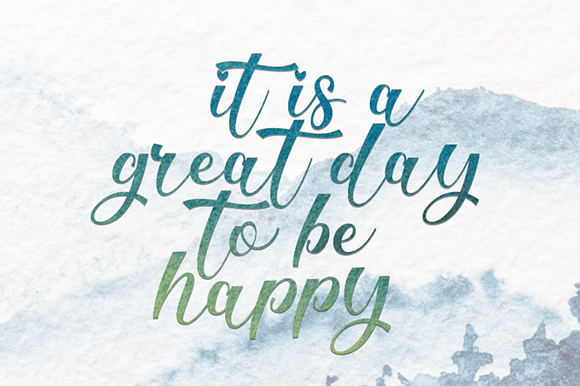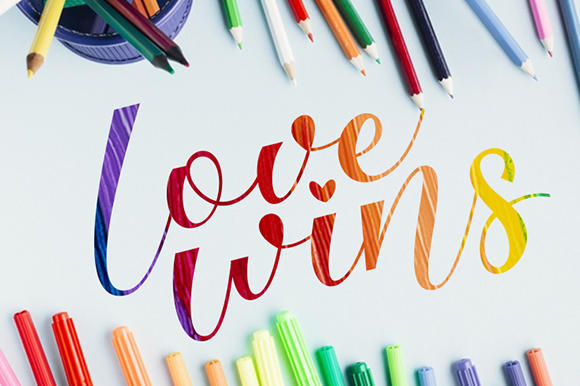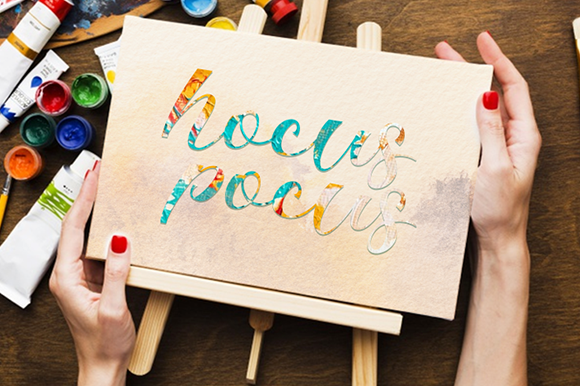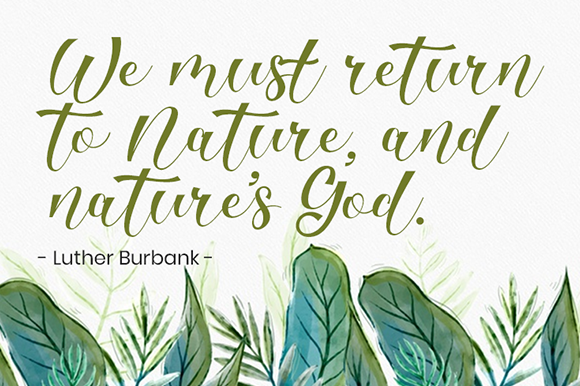
Introduction to Cherish Today Font
Cheerish Today feels sophisticated and modern.
It features an elegant & fun styles and it can be used for various purposes, such as logos, wedding invitation, t-shirt, letterhead, signage, news, posters, badges and more .